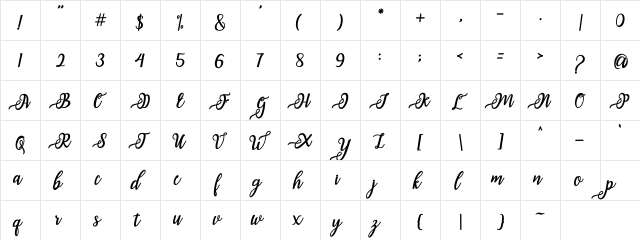
Issabeta Script Regular
Design Context for Issabeta Script Typeface
Issabeta Script flows with the natural rhythm of handwritten lettering, making it ideal for designs that call for warmth and personal expression.
Font Pairing: Combine Issabeta Script with a simple geometric sans for maximum contrast — the tension between flowing curves and clean structure is a classic typographic pairing.
Pro Tip: Pair Issabeta Script with a clean sans-serif for supporting text. The contrast between fluid script and geometric structure creates an elegant typographic hierarchy.